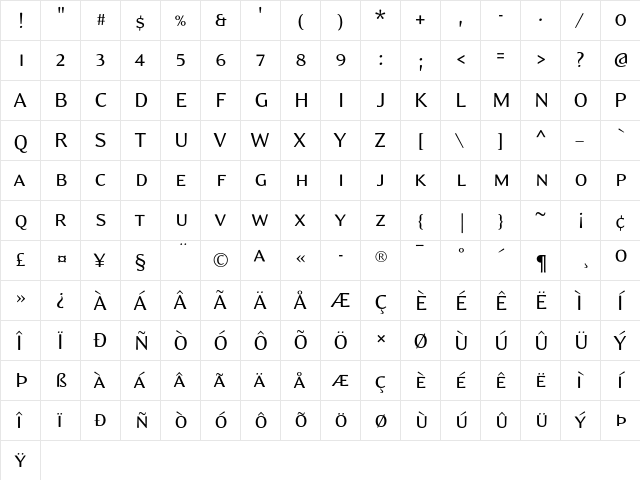
EideticModern-SmallCaps Regular
Design Context for EideticModern-SmallCaps Typeface
EideticModern-SmallCaps takes a measured approach to typography — its balanced proportions and neutral character make it a reliable workhorse for both digital and print work.